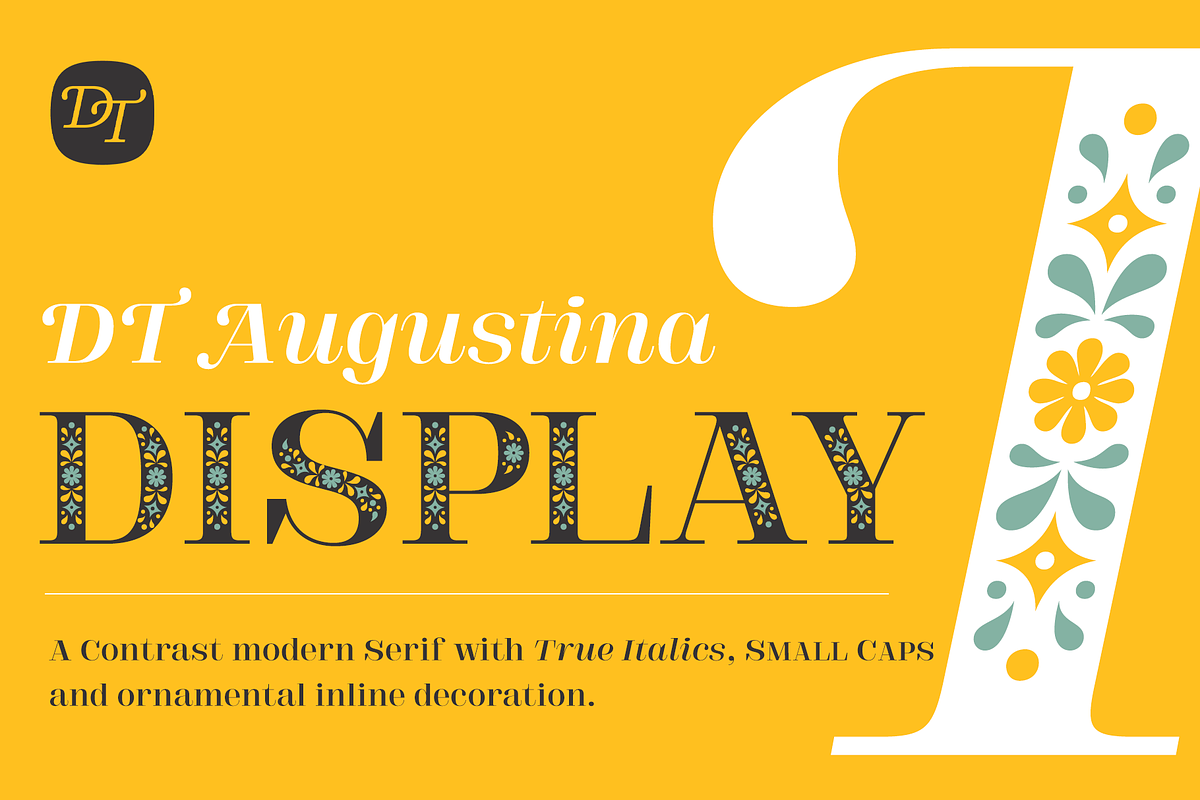
DT Augustina Serif Display Font Free Download is a refined and artistic typeface that brings together the elegance of classic serifs with the flair of modern display design. With its high contrast strokes, dramatic curves, and stylish letterforms, DT Augustina is perfect for magazine headlines, branding, luxury packaging, wedding invitations, and upscale promotional materials.
Its sophisticated design makes it ideal for projects that demand attention with grace and beauty. Whether you're crafting bold titles or decorative logos, DT Augustina offers a premium aesthetic that stands out while remaining timeless and versatile.